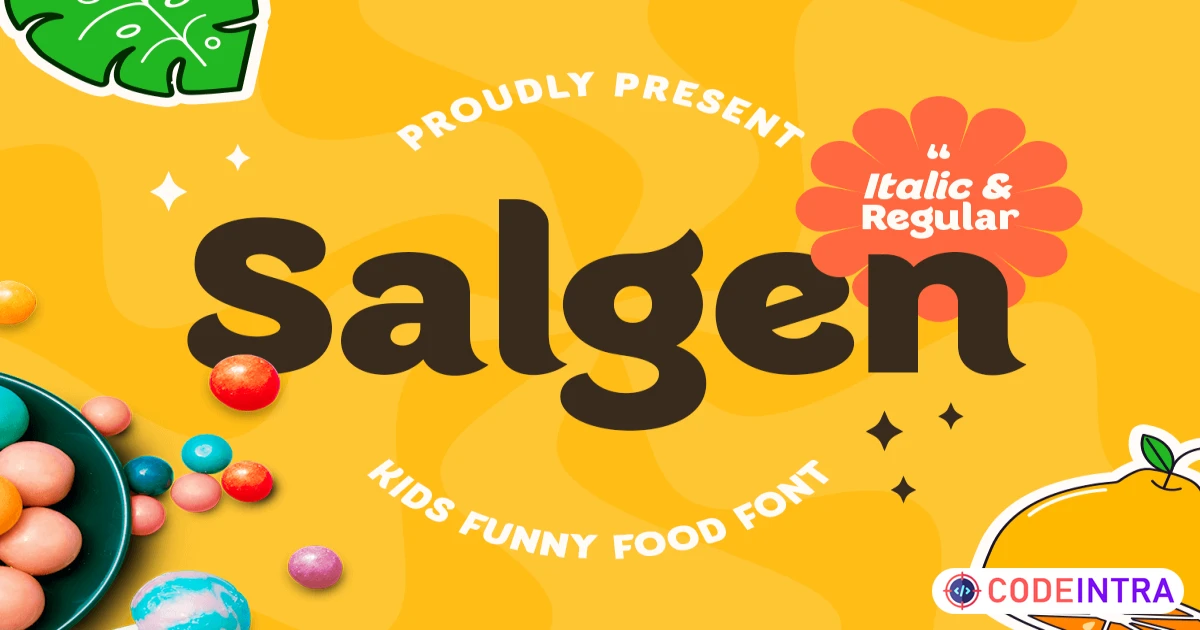
Salgen - Kids Funny Food Font Premium Sans-Serif
Salgen – A Playful Kids Funny Food Font
Salgen is a font that exudes cheerfulness and whimsy, designed to infuse your projects with fun and energy. Inspired by children's illustrations and vibrant food packaging, this font features bold shapes and playful curves, making designs lively and inviting.
Perfect For:
🎨 Children's books & storyboards
🍔 Food product packaging & menus
📢 Playful branding & advertising
🎭 Posters, logos, & social media graphics
Features:
Regular & Italic Styles – Adaptable for various creative needs
Complete Character Set – Uppercase, lowercase, punctuation, numbers, and symbols
Multilingual Support – Covers a wide range of global languages
OpenType Features – Enhance designs with stylistic alternates
✨ Whether you're crafting a fun menu, branding a kids' product, or designing playful graphics, Salgen adds a delightful and eye-catching touch! 🎨🍭